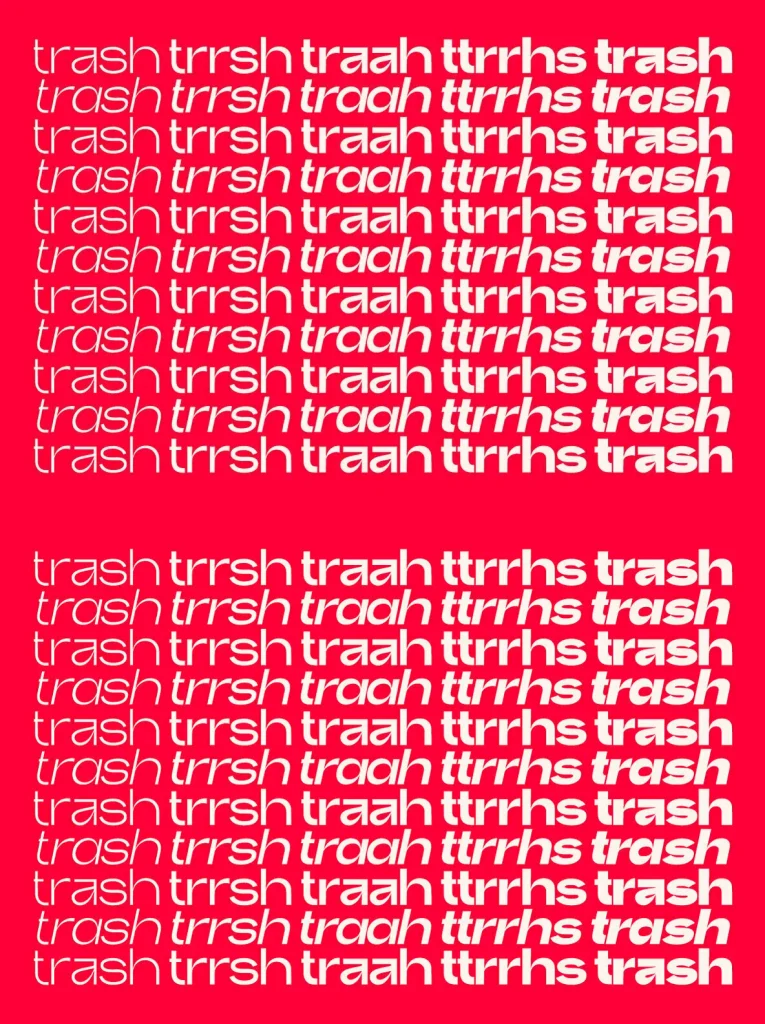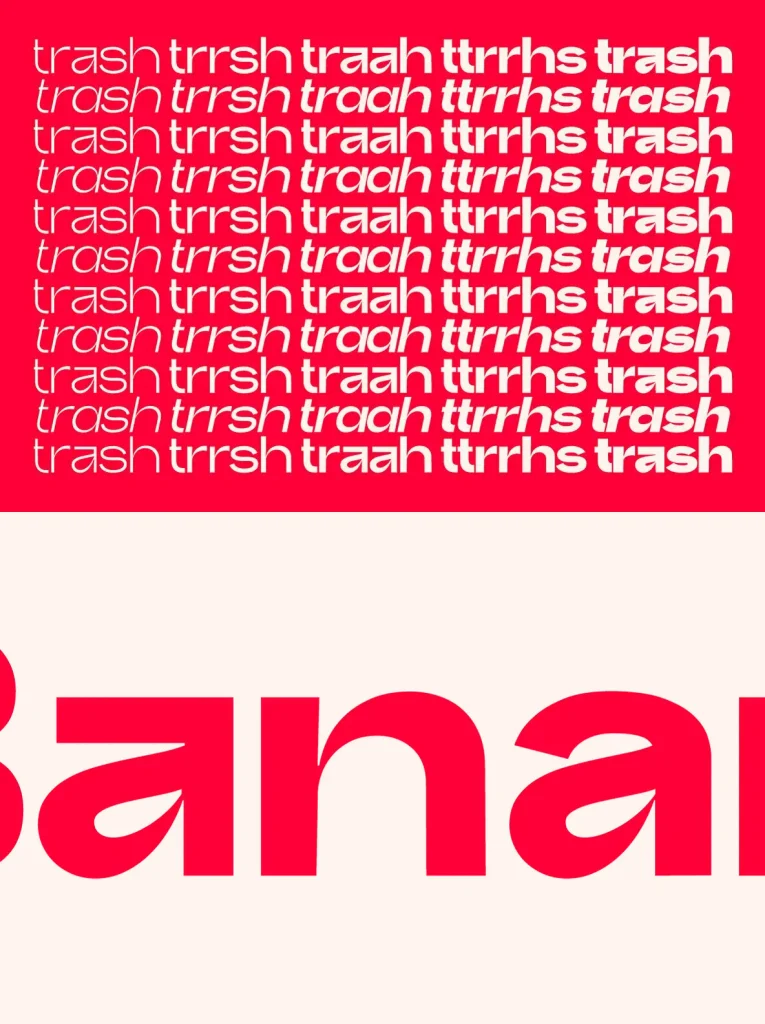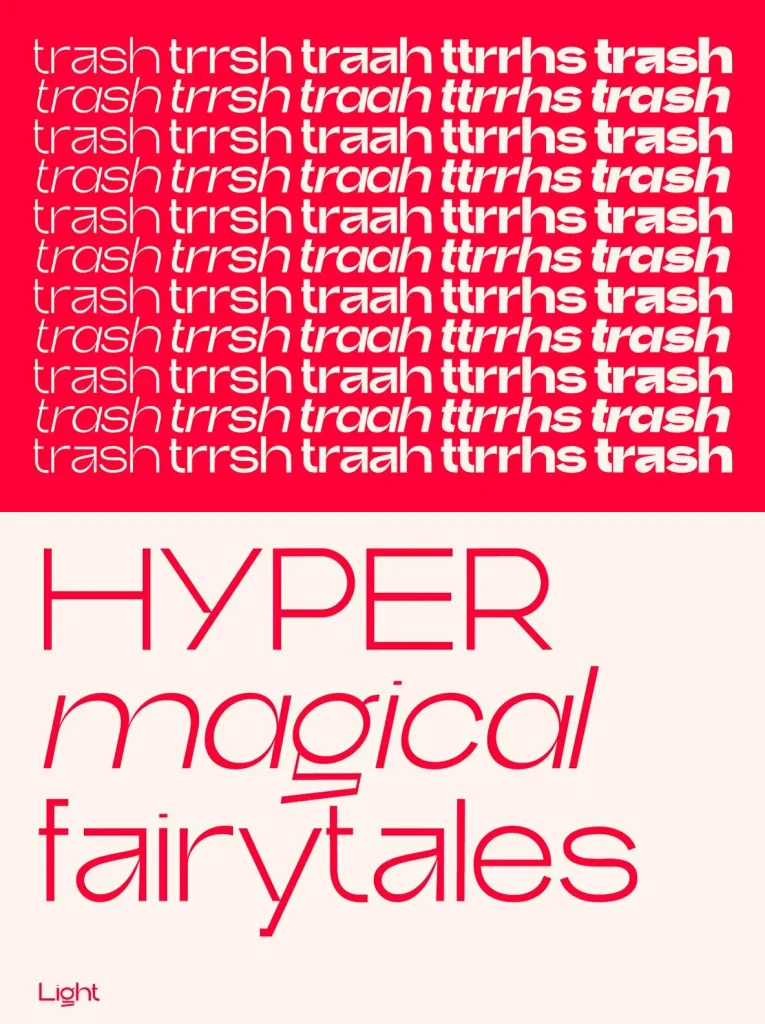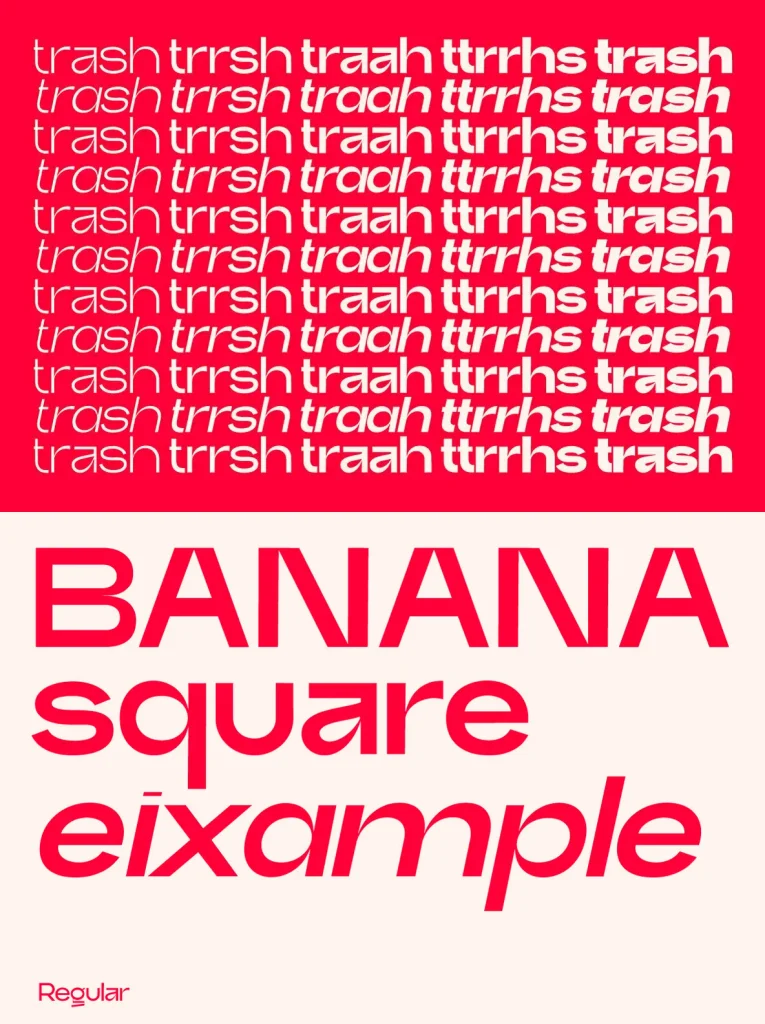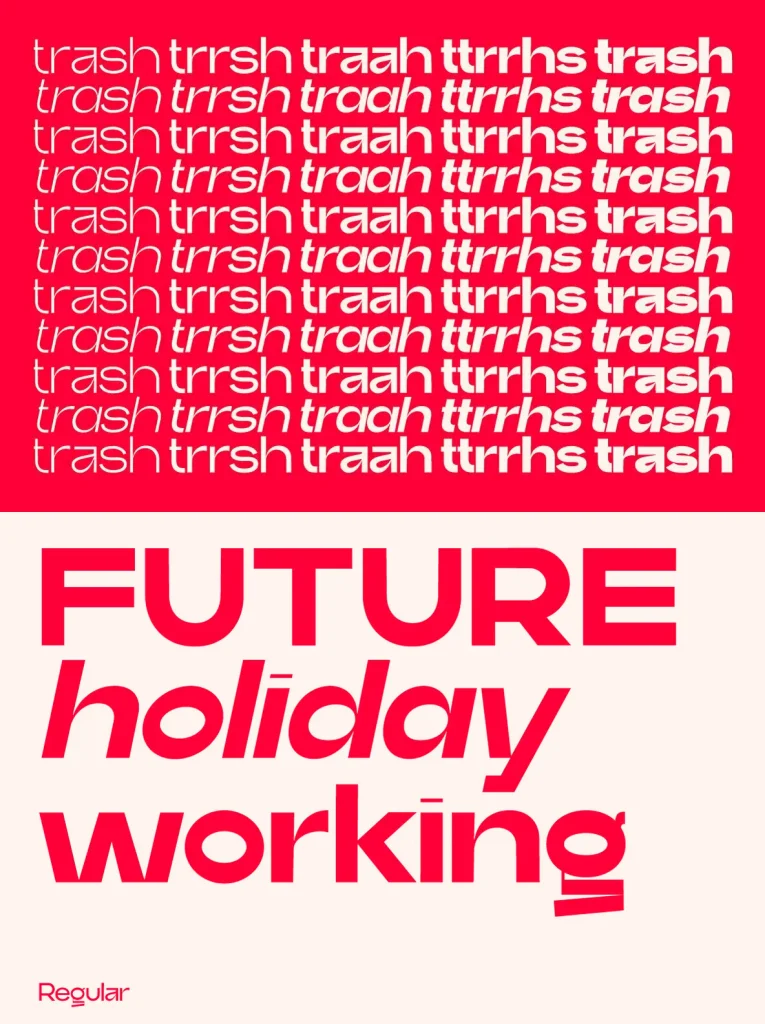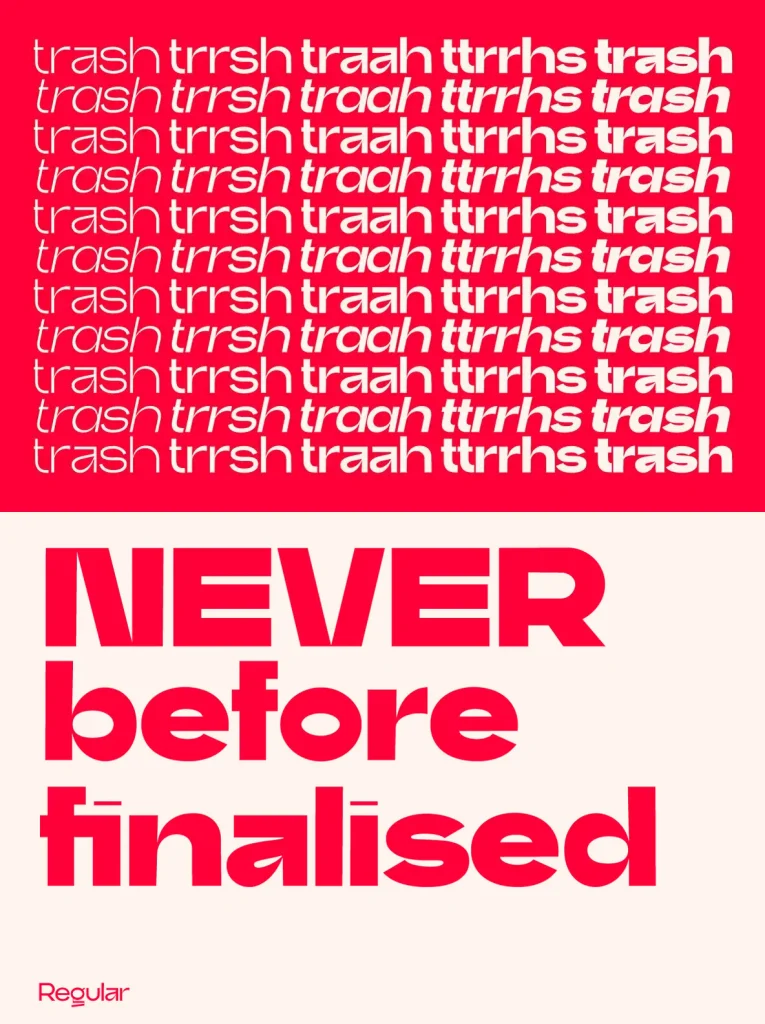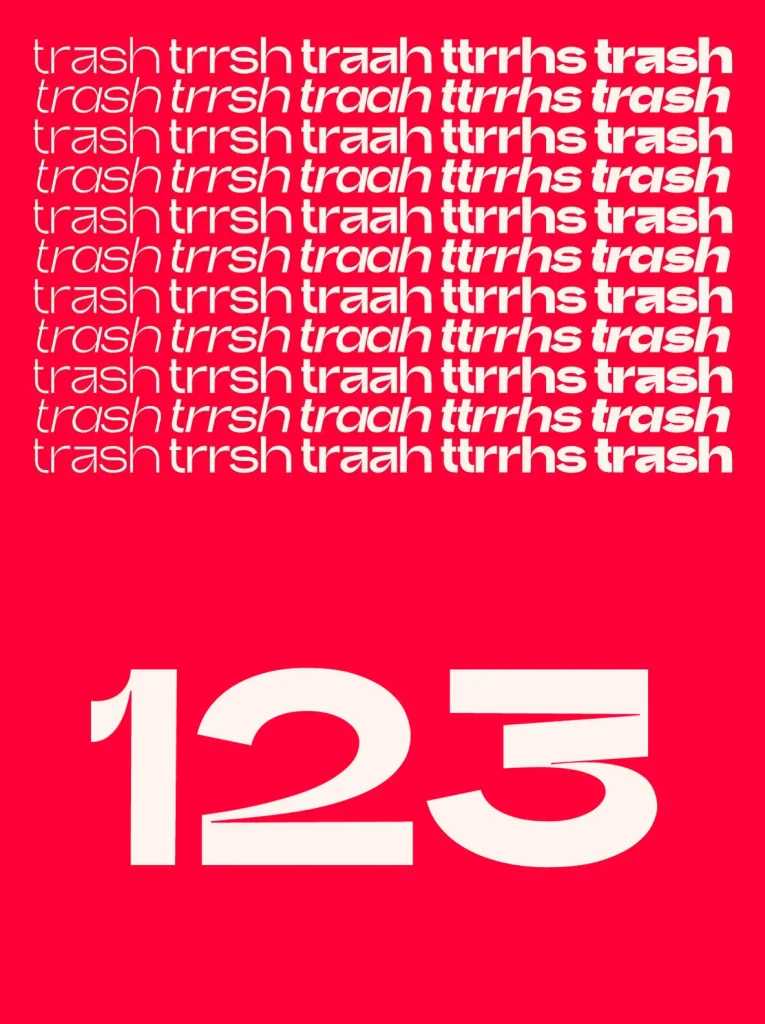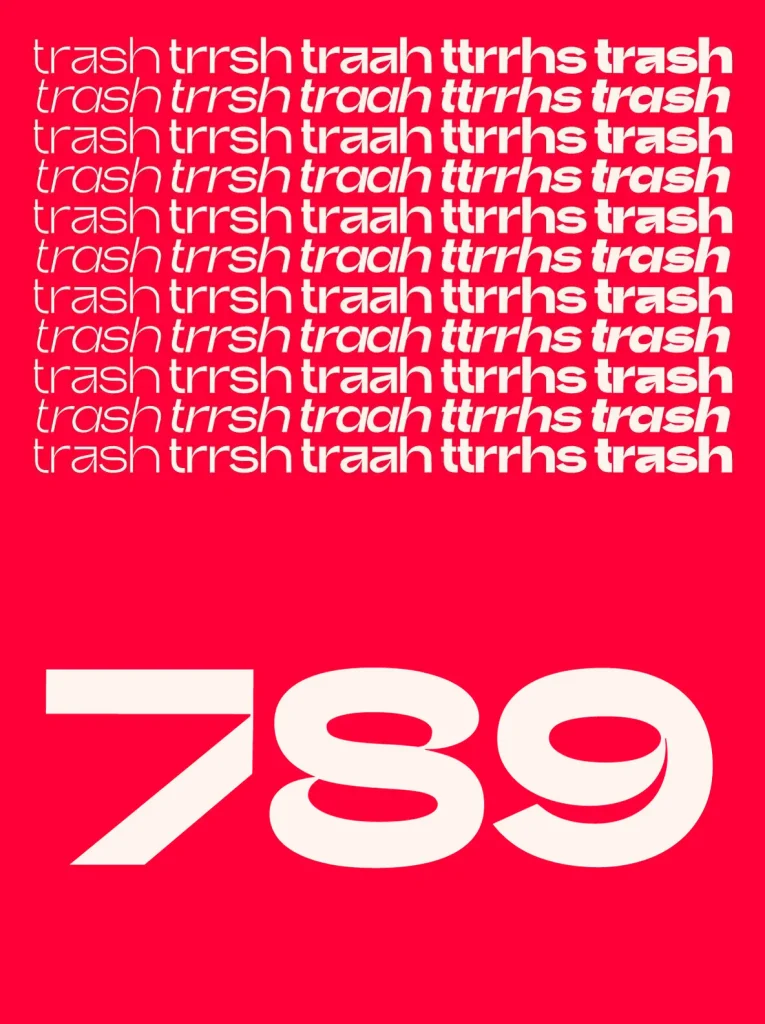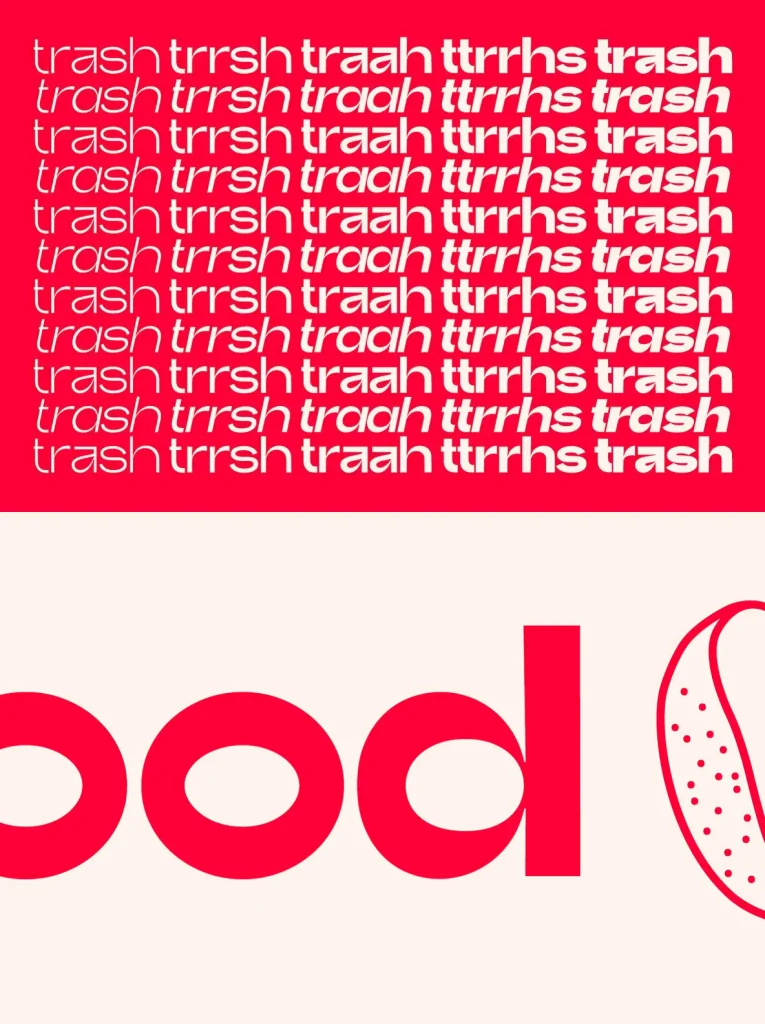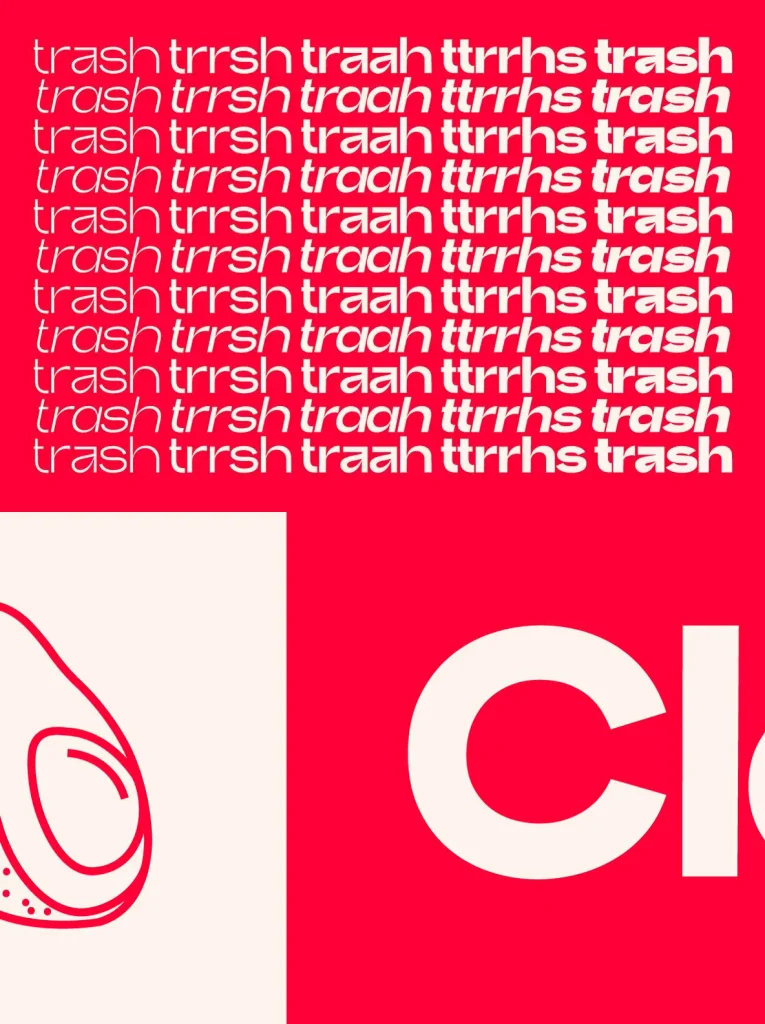
Trash Font
Trash is an experiment of typographic creation. I’ve tried to explore the limits of what is right and what is wrong in type design, to push the contrasts and the metrics to extreme values and try to have fun doing something cool and that I really like. For this, I’ve designed a commercial and contemporary type. It engages well as a display and can be adapted to small text size maintaining its structure and appearance.